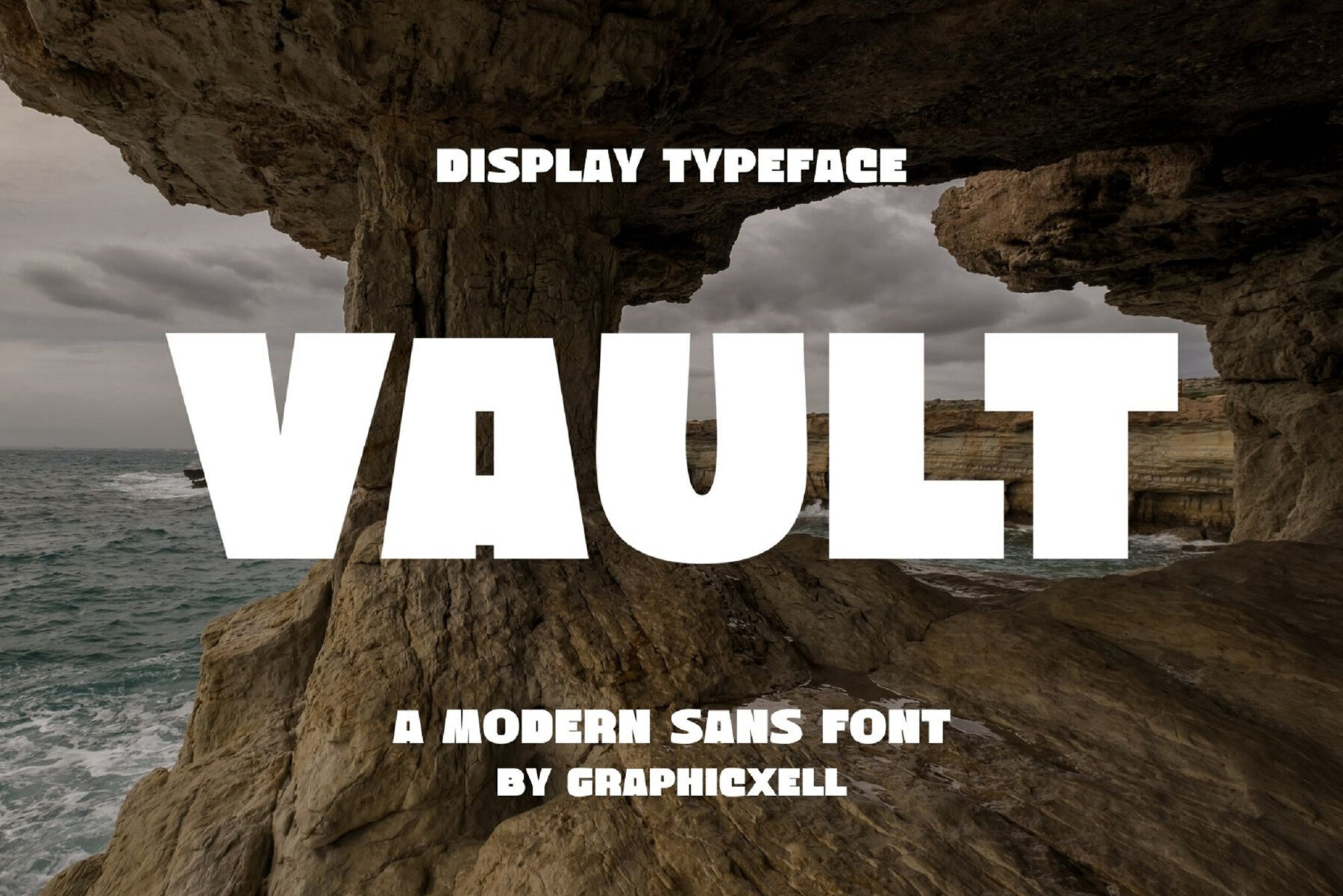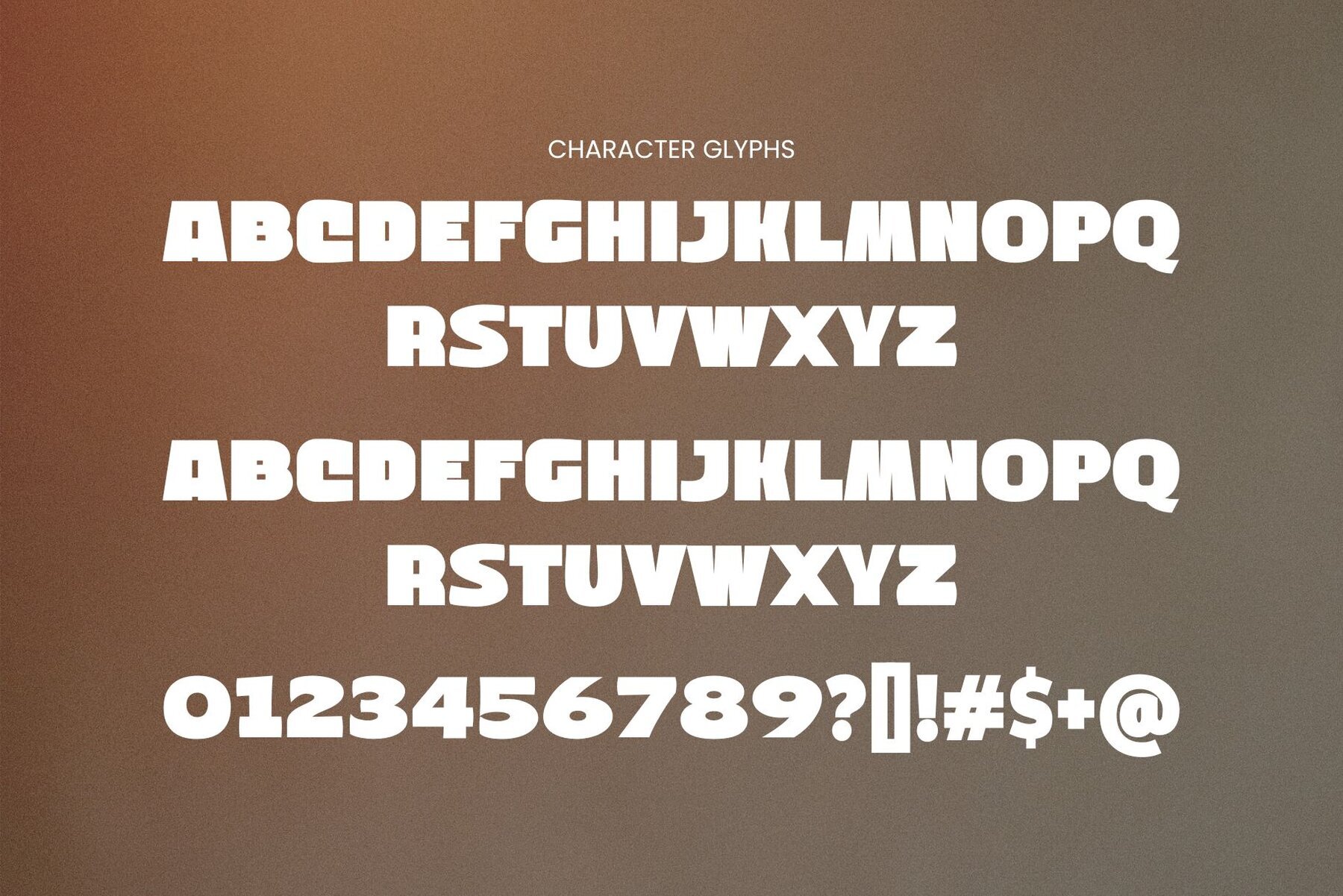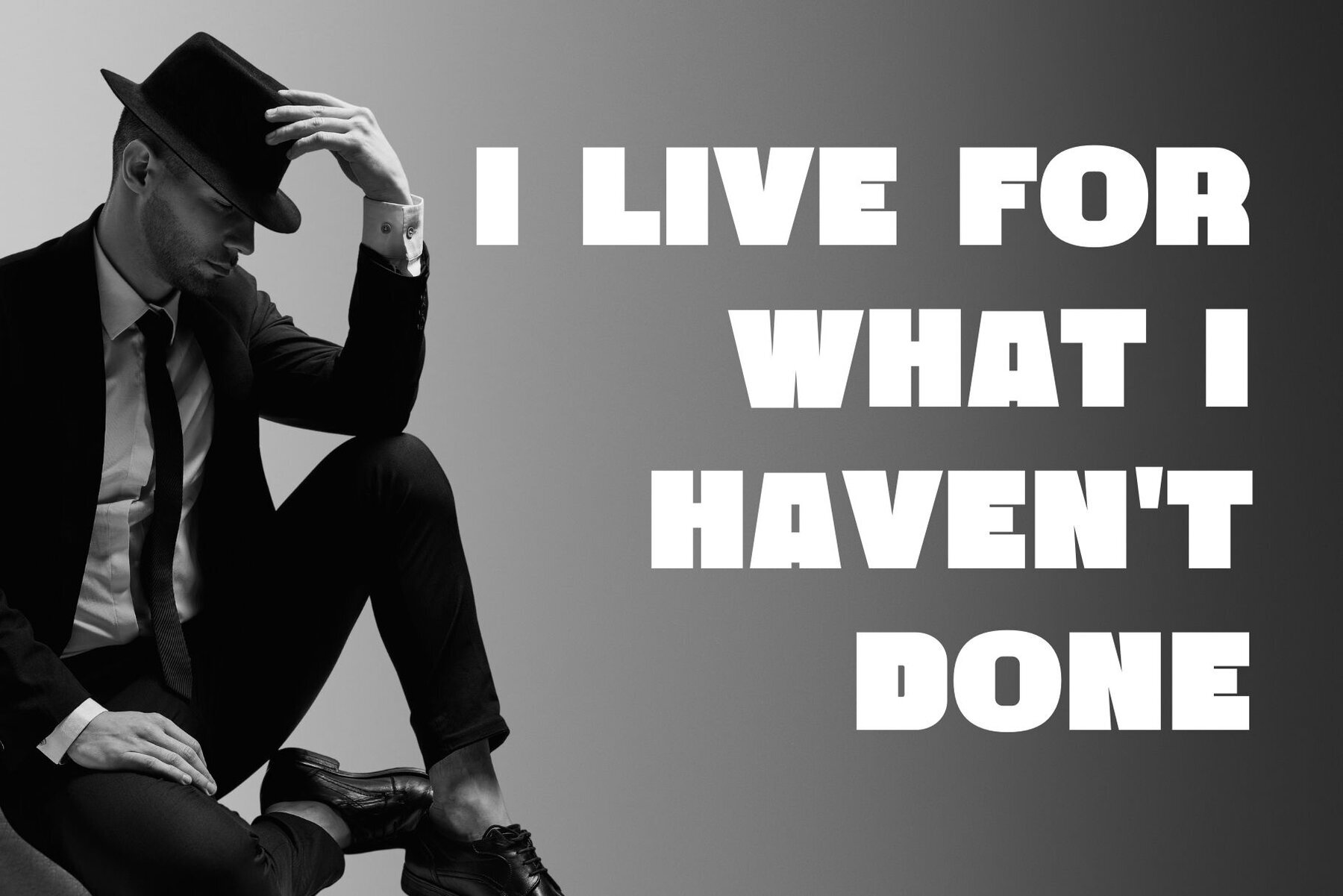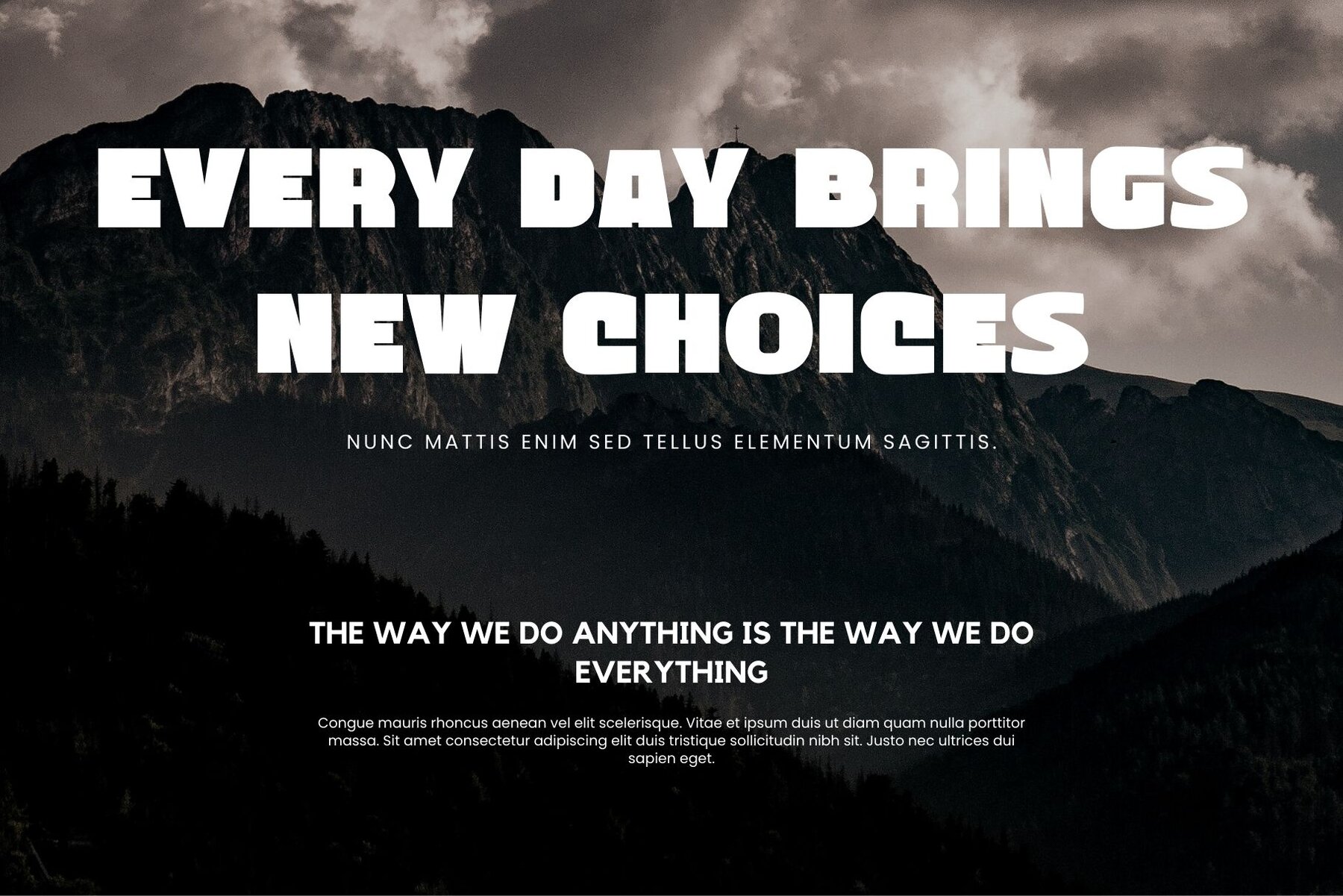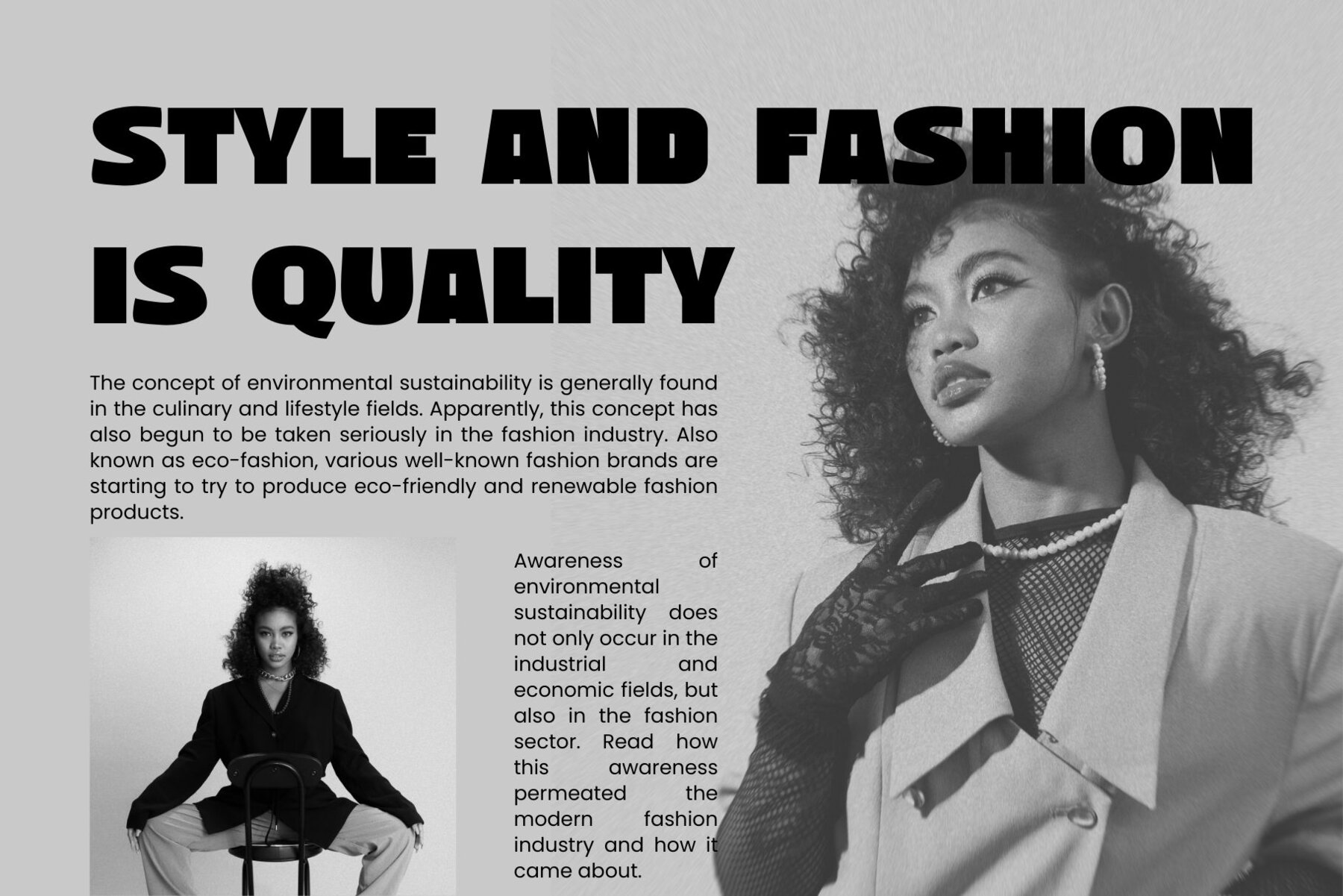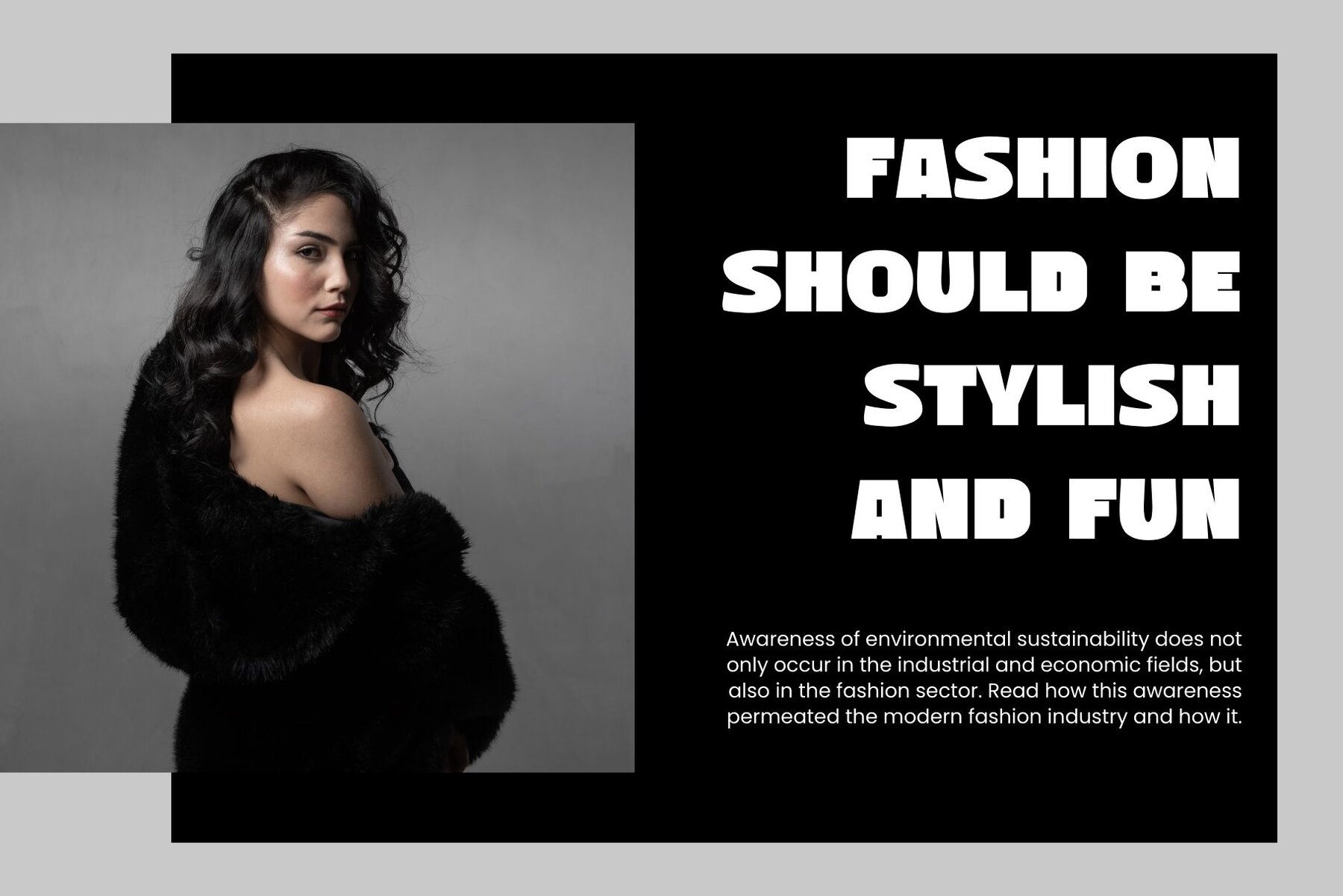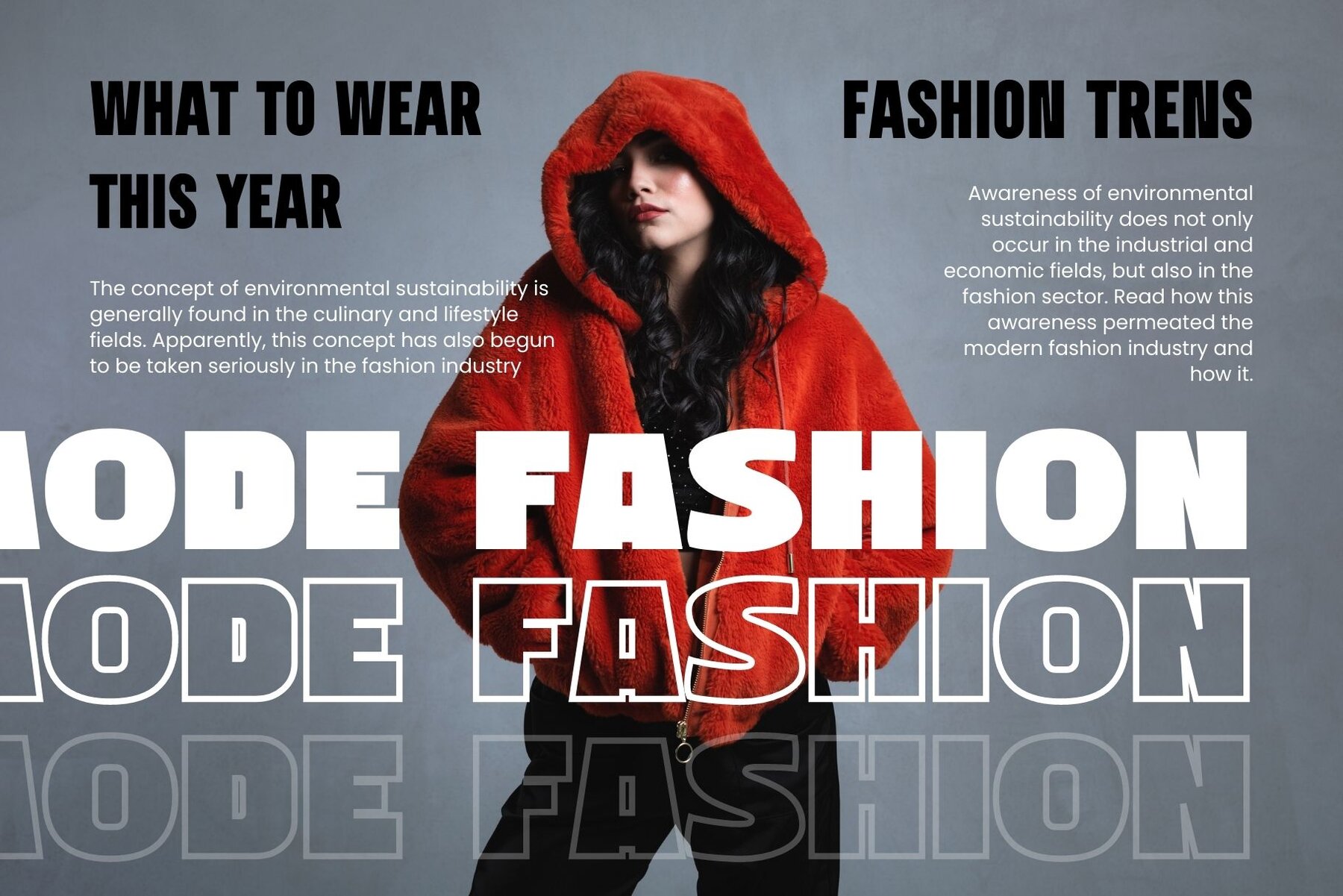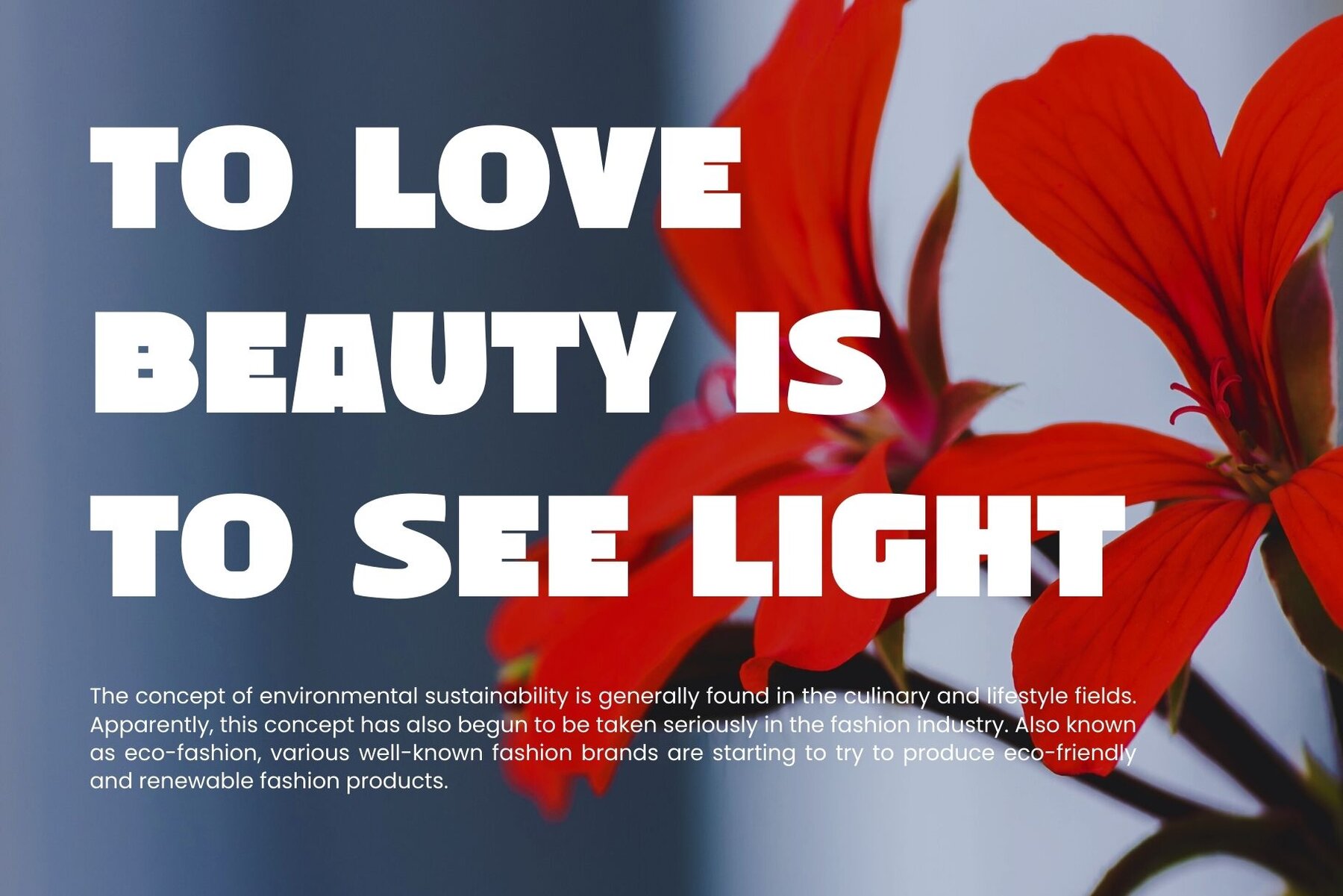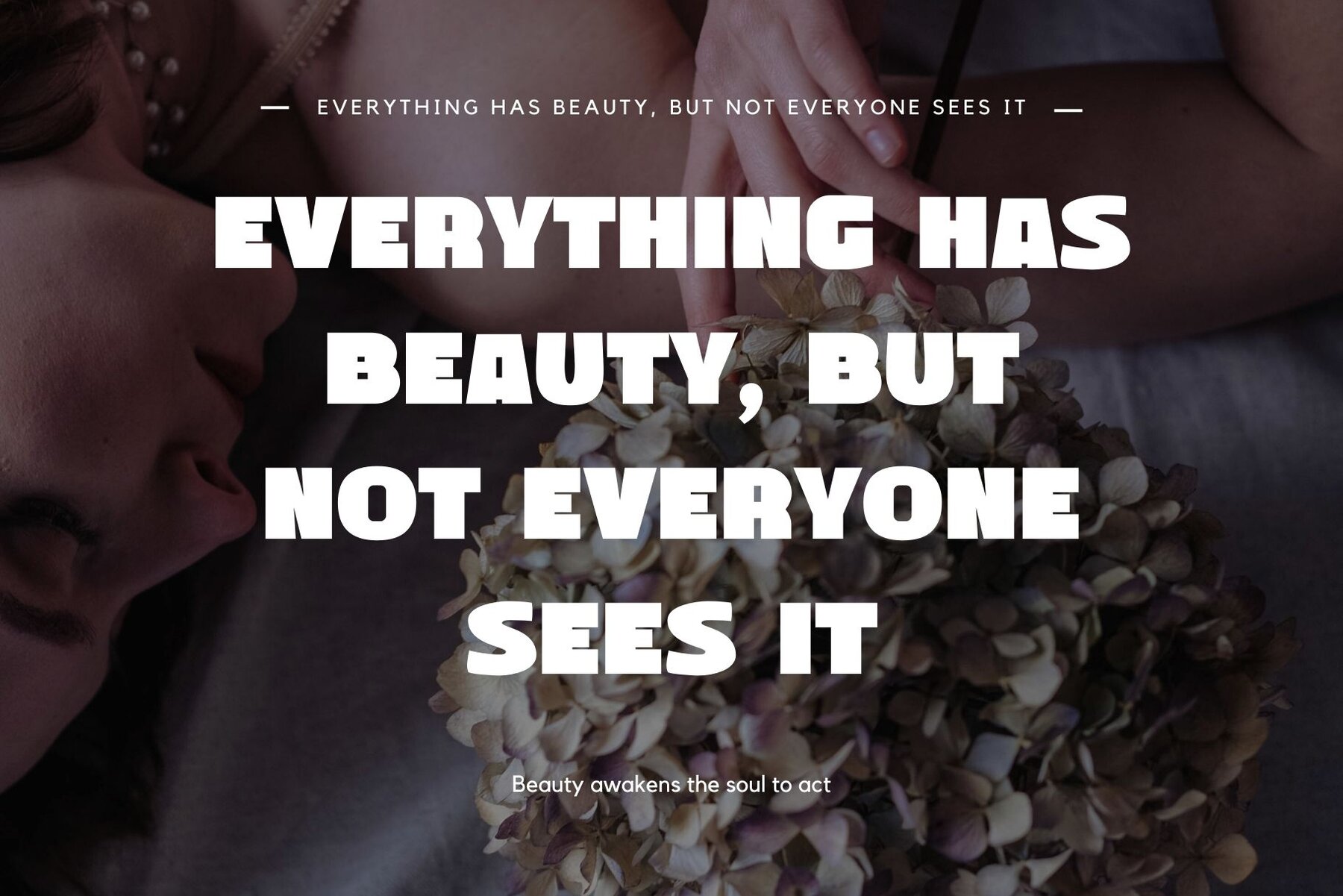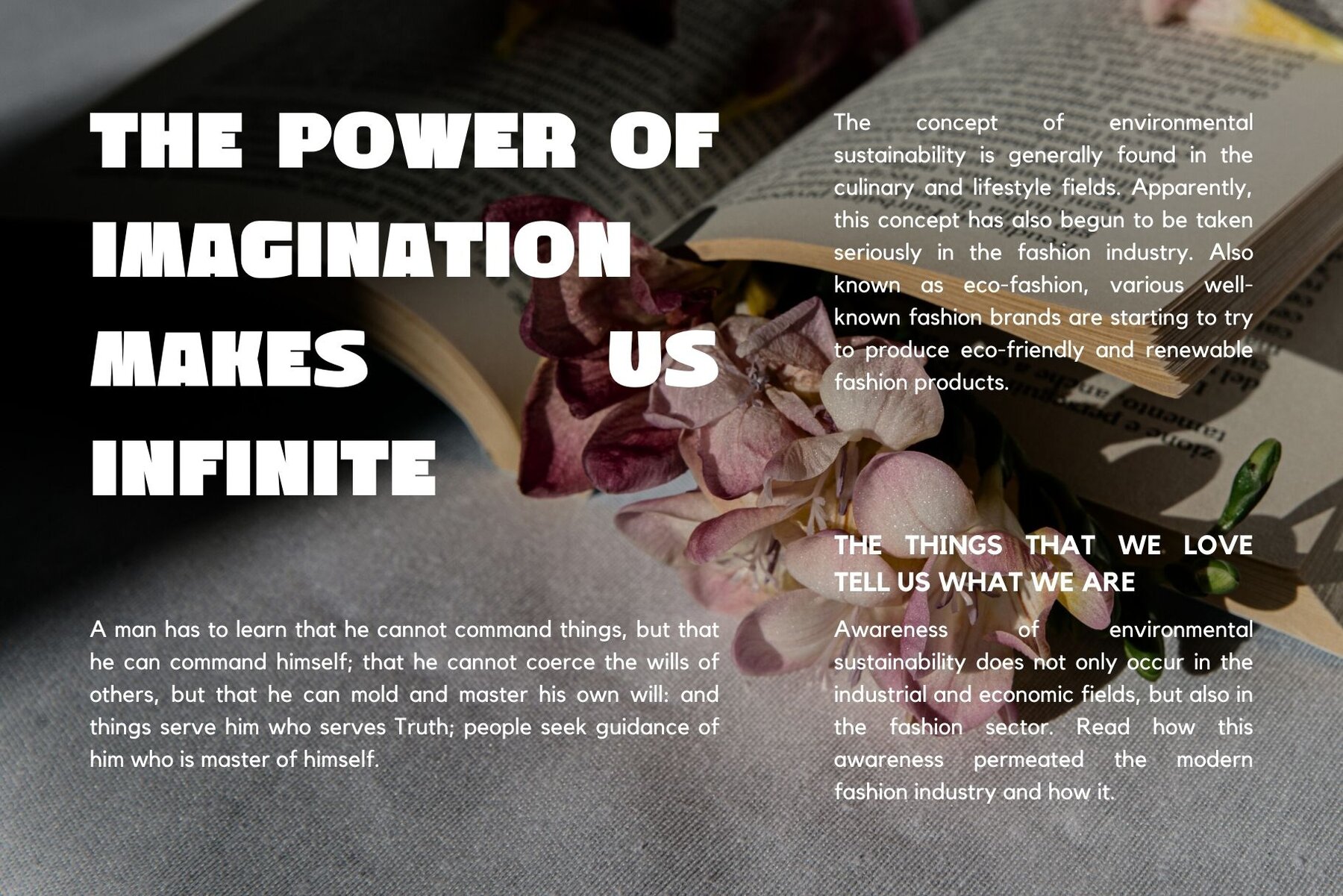
Vault Font
Vault Regular
Inspired by the renowned minimalist logo style, Vault by Graphicxell offers a clean and sophisticated aesthetic. This versatile font is ideal for creating templates, brochures, videos, branding materials, logos, invitations, and more. Its elegance makes it perfect for crafting beautiful designs and enhancing your creative projects.Vault: A Minimalist Font for Versatile Design